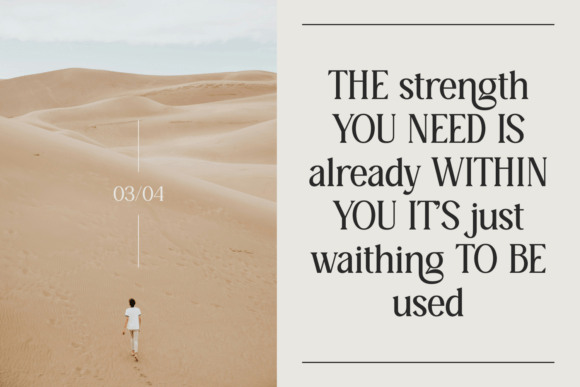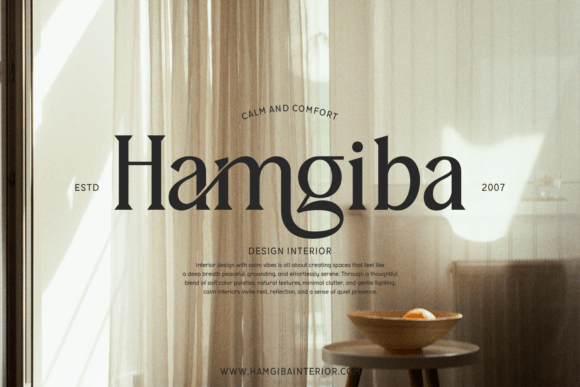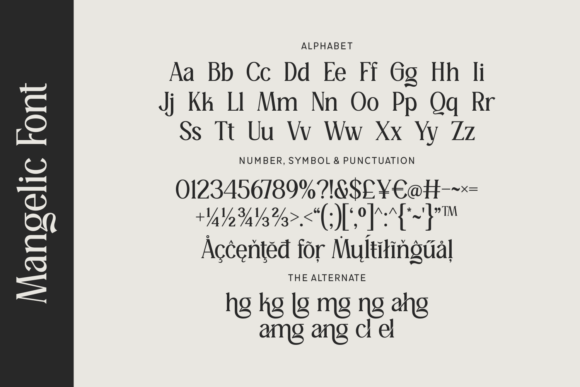
Introduction to Mangelic Font
As a designer, there’s nothing quite like the thrill of discovering a new font that perfectly captures the essence of your creative project. For me, that moment came when I stumbled upon the Mangelic Font – a sleek and romantic modern serif font that effortlessly pairs delicate curves with bold sophistication. I was immediately drawn to its clean yet expressive touch, and I knew it would be a valuable addition to my design resource library.
Whether you’re working on an upscale branding project or creating editorial content for a fashion blog, the Mangelic Font is an excellent choice. Its high quality and versatility make it a go-to design resource for designers seeking to elevate their creative output. And the best part? The Mangelic Font is available for free download, complete with a transparent background – giving you the flexibility to use it in a variety of applications.
Key Features of Mangelic Font
- High-quality design resource ideal for creative projects and graphic designs.
- Features a transparent background, making it easy to use in various design scenarios.
- Designed with a unique aesthetic, offering a distinctive look for your designs.
- Supports a wide range of languages, including Latin, Cyrillic, and Greek alphabets.
- Comes in 2 font weights: Regular and Bold, allowing for flexibility in design applications.
Honest Review: Mangelic Font
As a designer, I’m always on the lookout for high-quality design resources that can elevate my creative projects. The Mangelic Font is one such resource that caught my attention recently.
- ✨ The Mangelic Font has a unique and modern design aesthetic that’s perfect for contemporary creative projects.
- ✨ The font is highly customizable, allowing users to adjust the size, color, and style to suit their needs.
- ⚠️ The font only comes with a transparent background, which may not be suitable for all design applications.
- ⚠️ The font library is relatively small, which may limit its versatility for complex design projects.
Overall, I’m impressed with the Mangelic Font’s unique design and high level of customization. While it may have some limitations, it’s an excellent addition to any designer’s toolkit, especially for free. I’d definitely recommend it for anyone looking for a modern and stylish font for their creative project.
Common Use Cases for Mangelic Font
Mangelic Font is ideal for a variety of creative projects, including logo design, social media graphics, and print materials. The font’s transparent background makes it easy to layer over images and graphics, adding an extra layer of depth and visual interest to your designs.